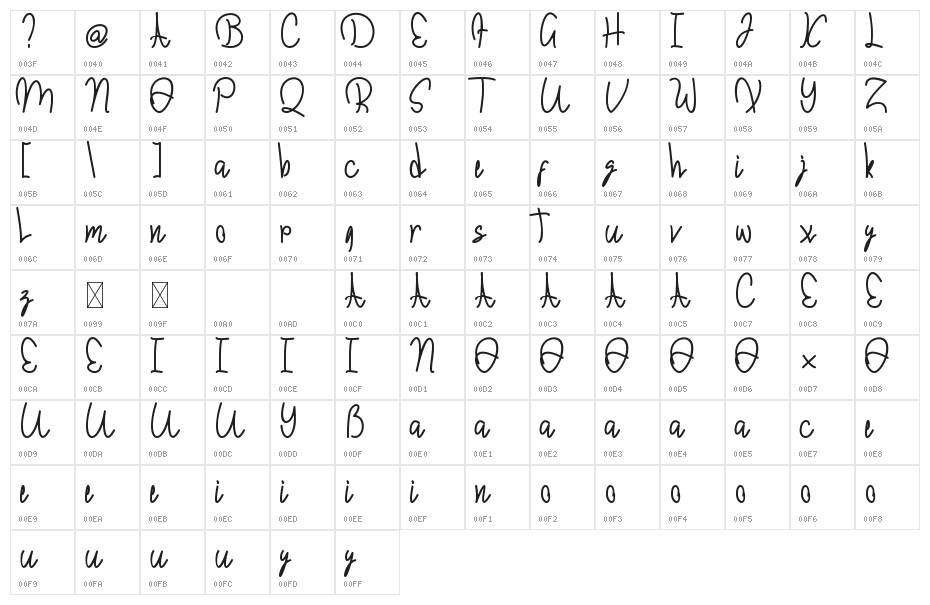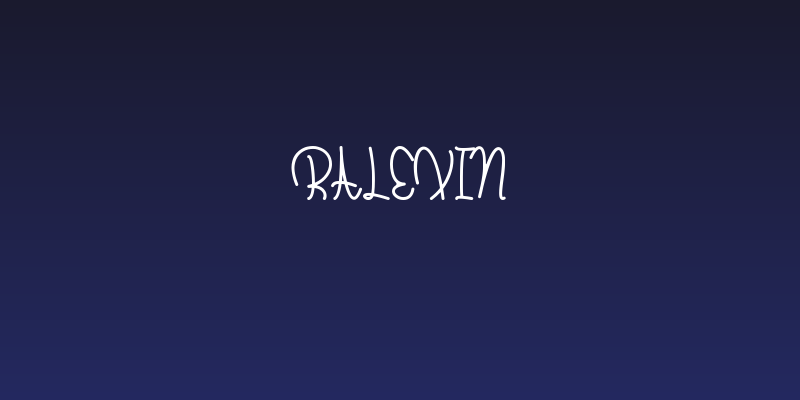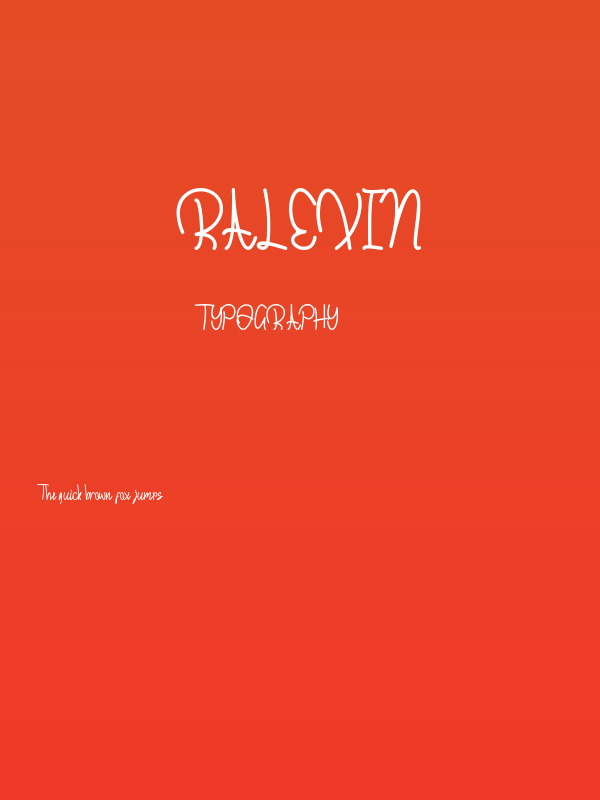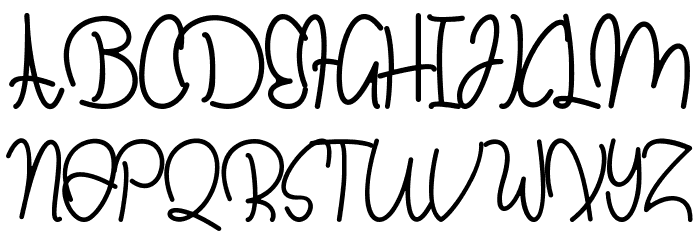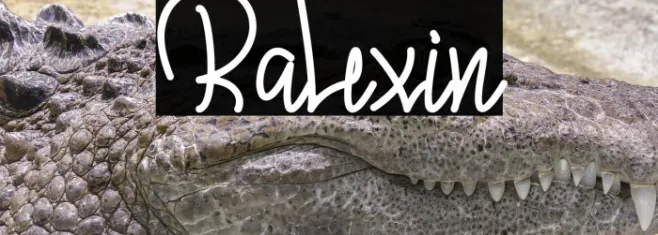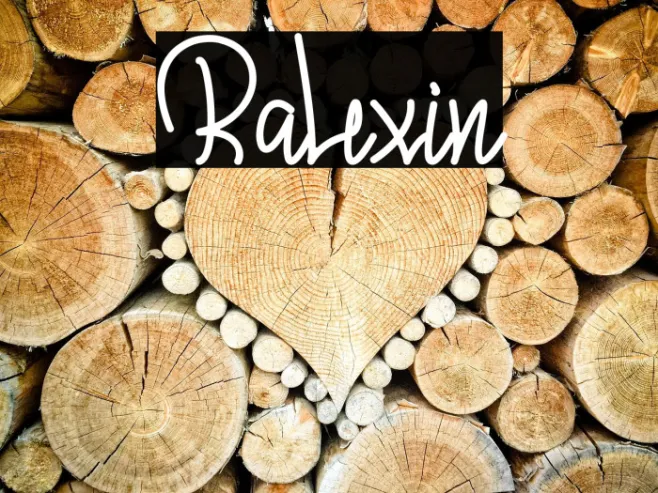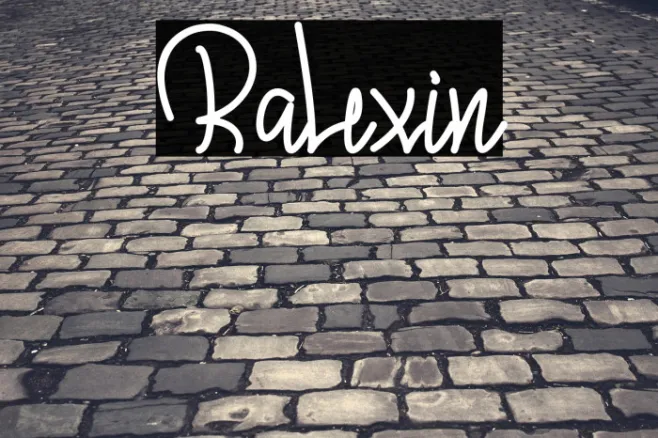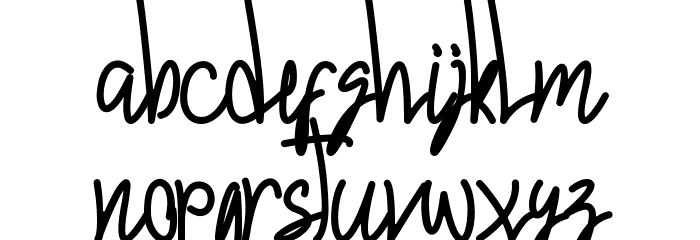
Ralexin Font
Ralexin Description
This font features a playful and dynamic handwritten style, characterized by its fluid and continuous strokes. The letters are slightly slanted, giving a sense of movement and energy. The uppercase and lowercase letters maintain a consistent style, with some letters featuring unique loops and curves that add to its charm. The numbers and special characters are designed to match the overall aesthetic, ensuring a cohesive look across all text. This font is ideal for projects that require a personal touch, such as invitations, greeting cards, or creative branding.
| Overall Style | Playful, Dynamic |
| Use Case | Headlines, Creative projects, Personal branding |
| Proposed Projects | Ideal for invitations, greeting cards, creative branding, and personal projects. |